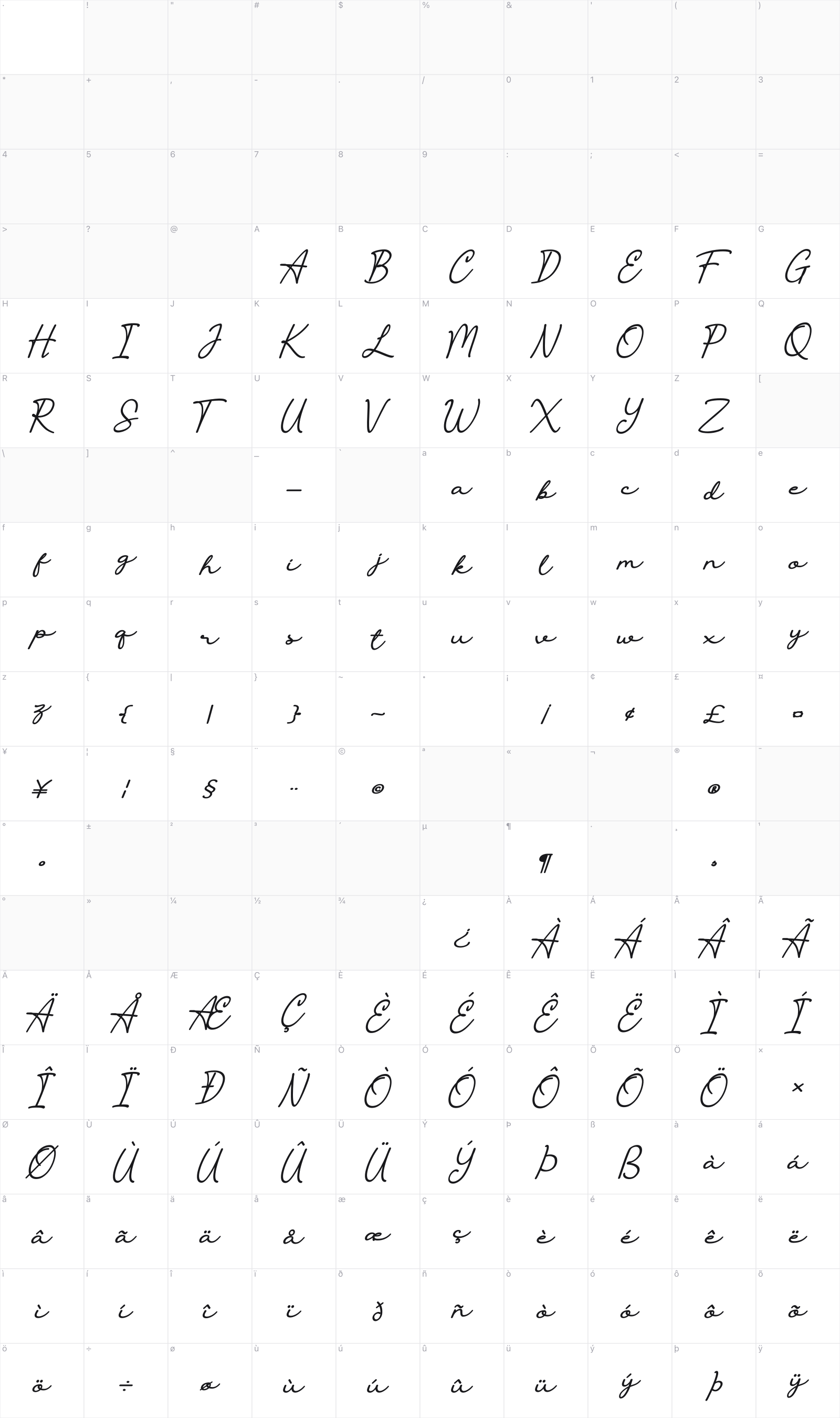
The Castellon
The Castellon is a thin, monoline script from Sibelumpagi that captures the fluid, unhurried rhythm of a practiced signature. The strokes stay consistent in weight throughout, giving it an elegant simplicity that feels personal without being fussy. A natural choice for branding, logos, and anywhere a handwritten touch needs to read as polished and intentional.